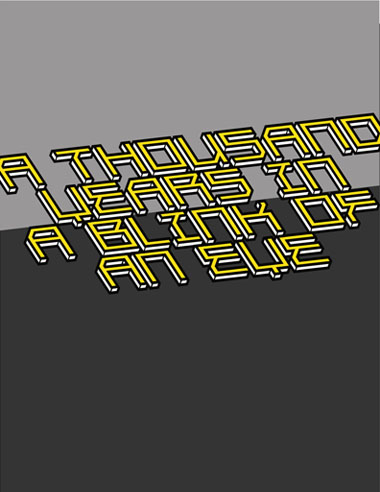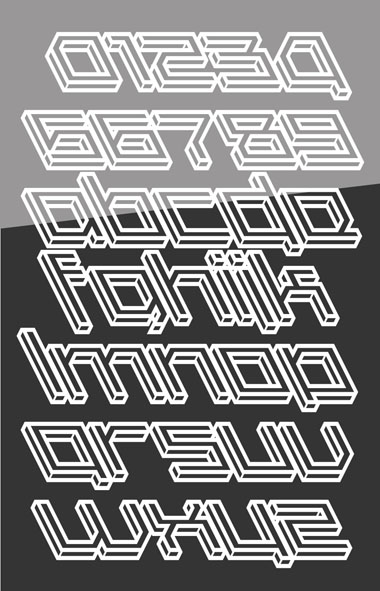
FS Galaxy Epsilon
Second enrty to the inline competition. Laid back...
A very quirky and successful 3D design.
I'm loving it!
"Laid back" :) An unusual angle on the 3D font styles ...
ha. i missed a "t" in the sample. but i'm tired. you have to live without it :)
I love this 3d Perspective
Great work
Sleek 3D font with the air of high tech. 10/10